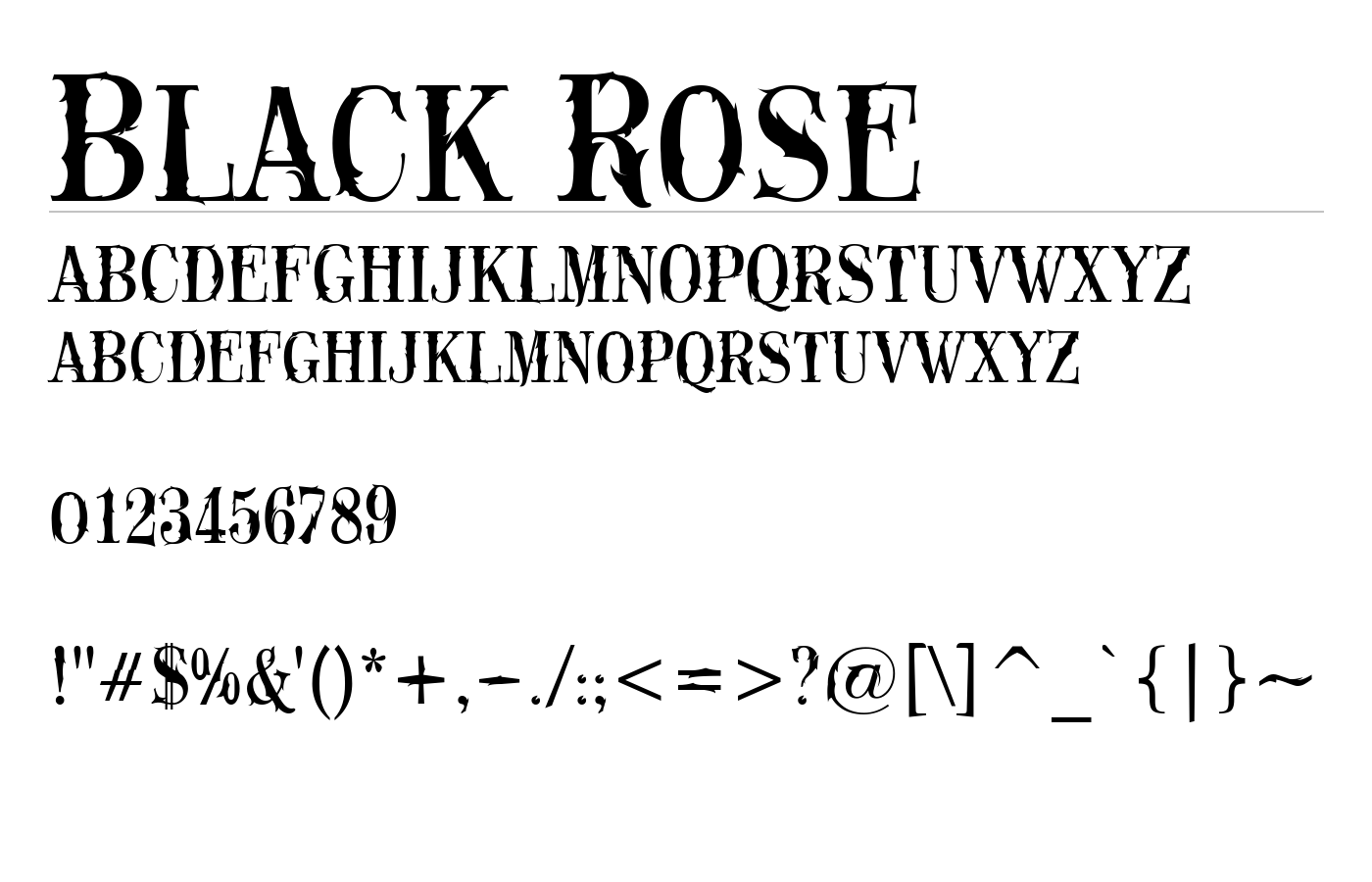
Black Rose is a bold serif font with a vintage gothic flair, featuring sharp, spiky accents that give it a dramatic, dark aesthetic. Its condensed uppercase letters with high contrast between thick and thin strokes make it ideal for impactful headlines, logos, and themed designs seeking a mysterious, edgy mood. This font works best in settings where a strong, eye-catching style is needed to convey a sense of boldness and intrigue.
Black Rose Font
About Black Rose Font
| Font family | Black Rose Font |
| Designer | StringLabs |